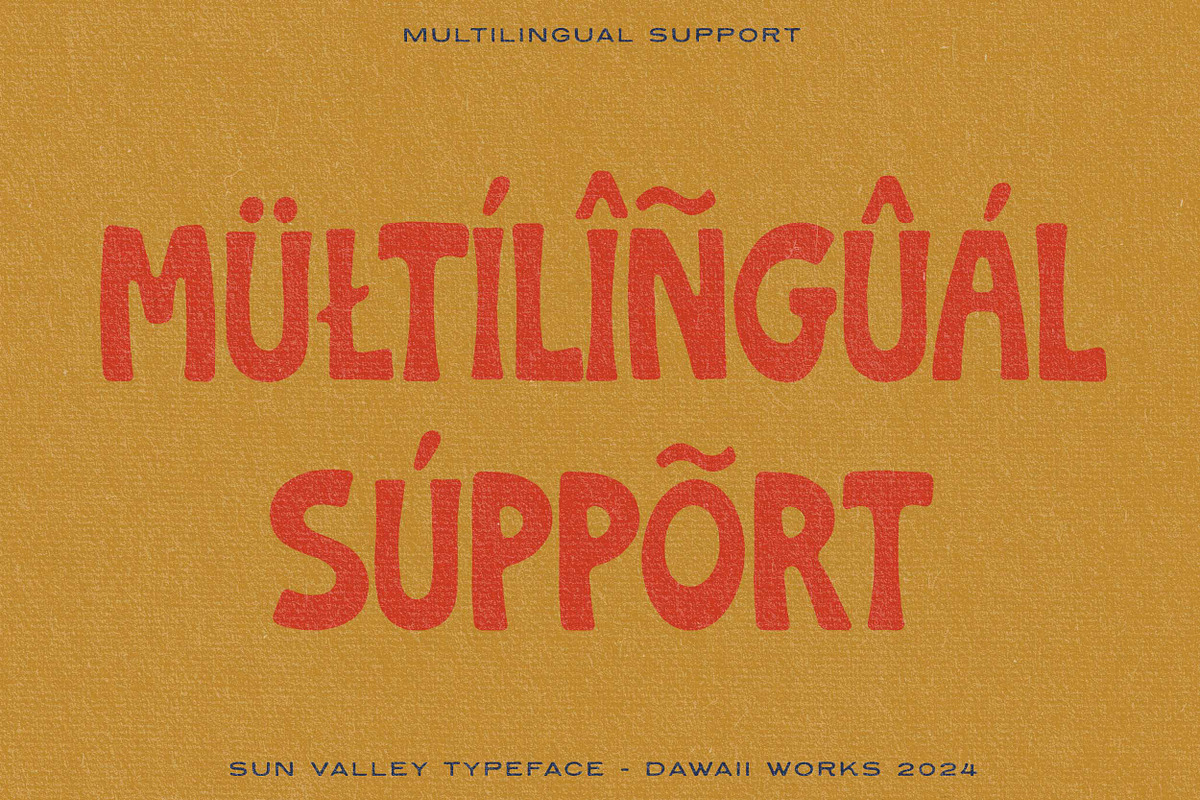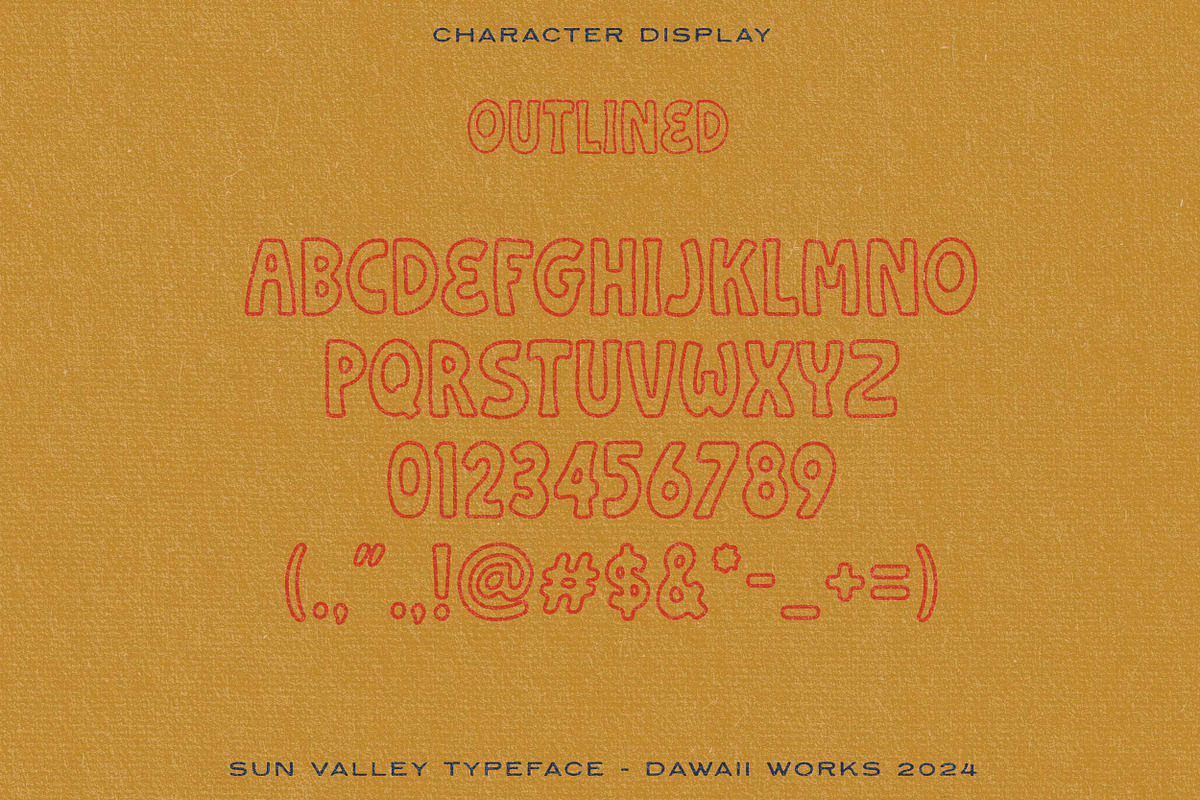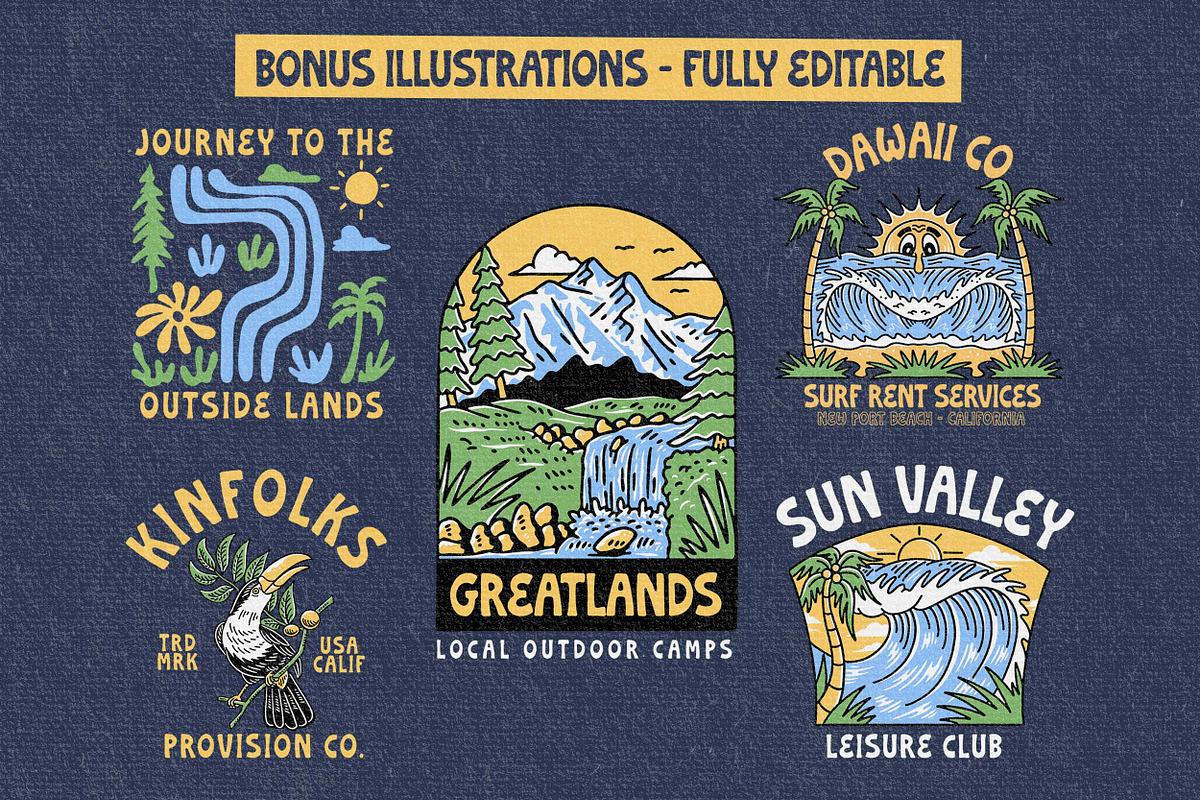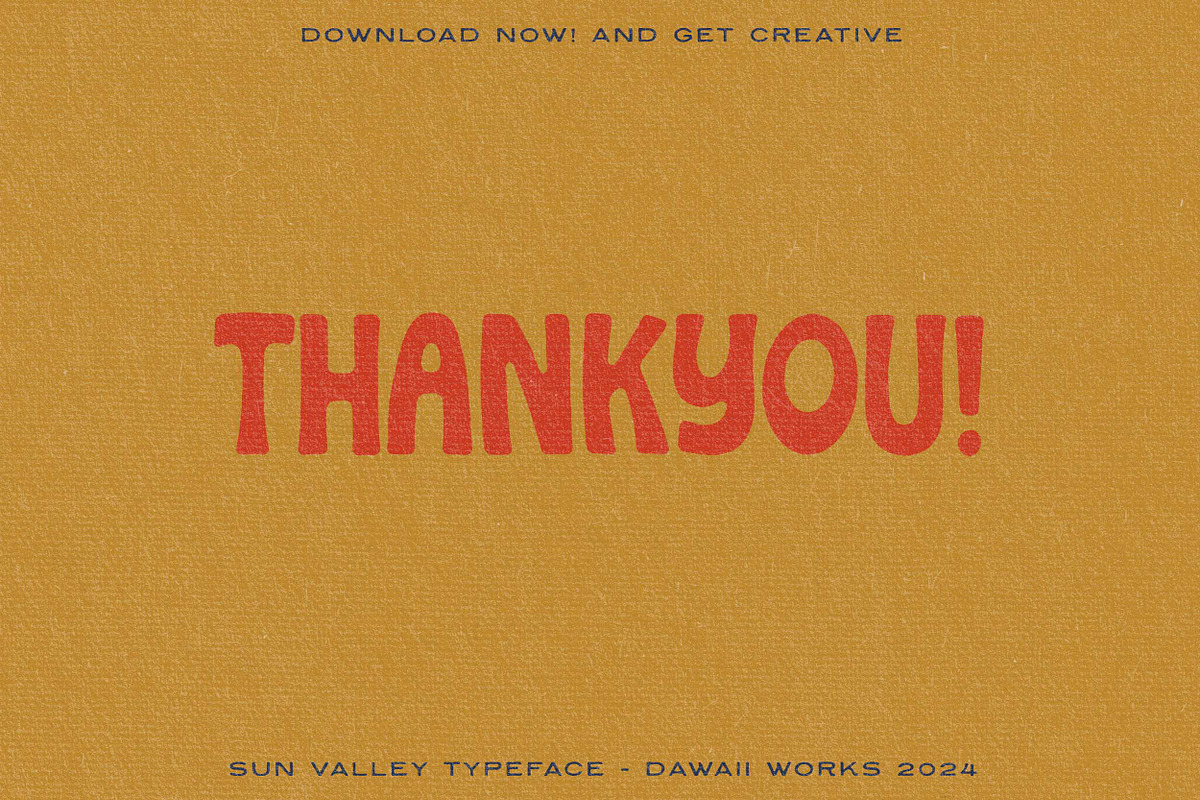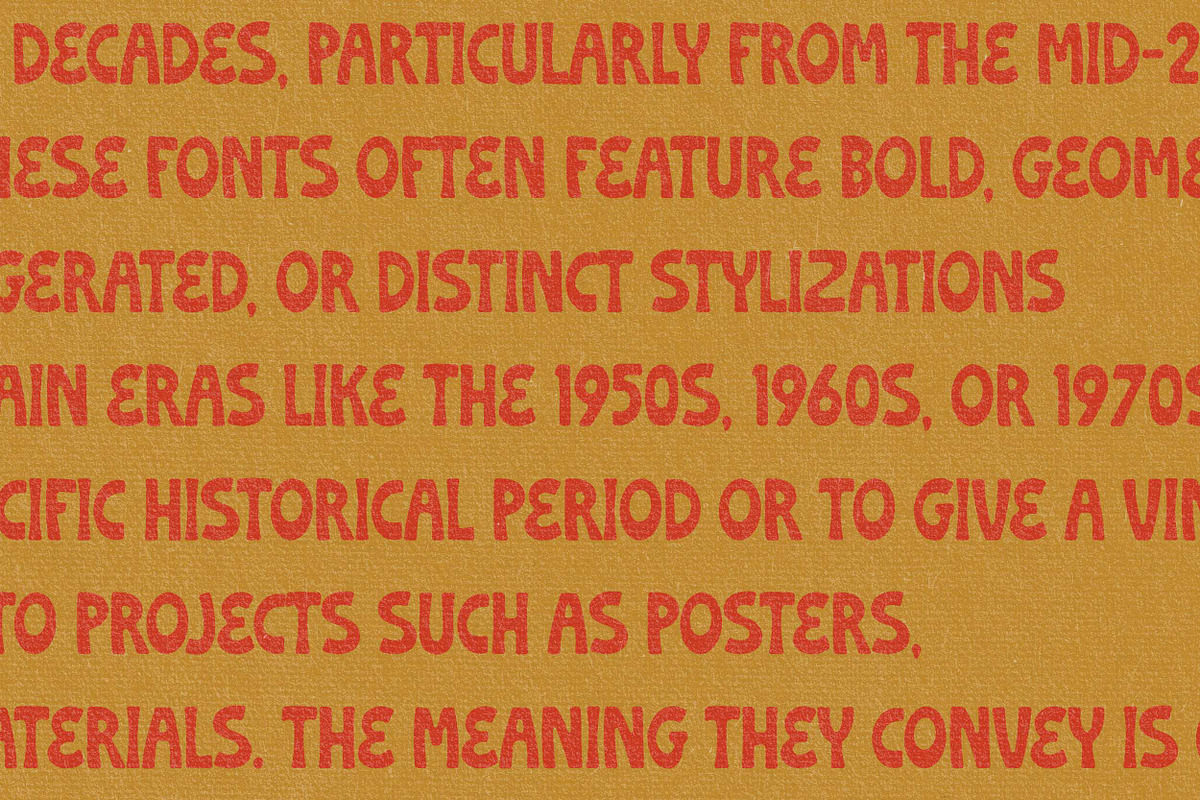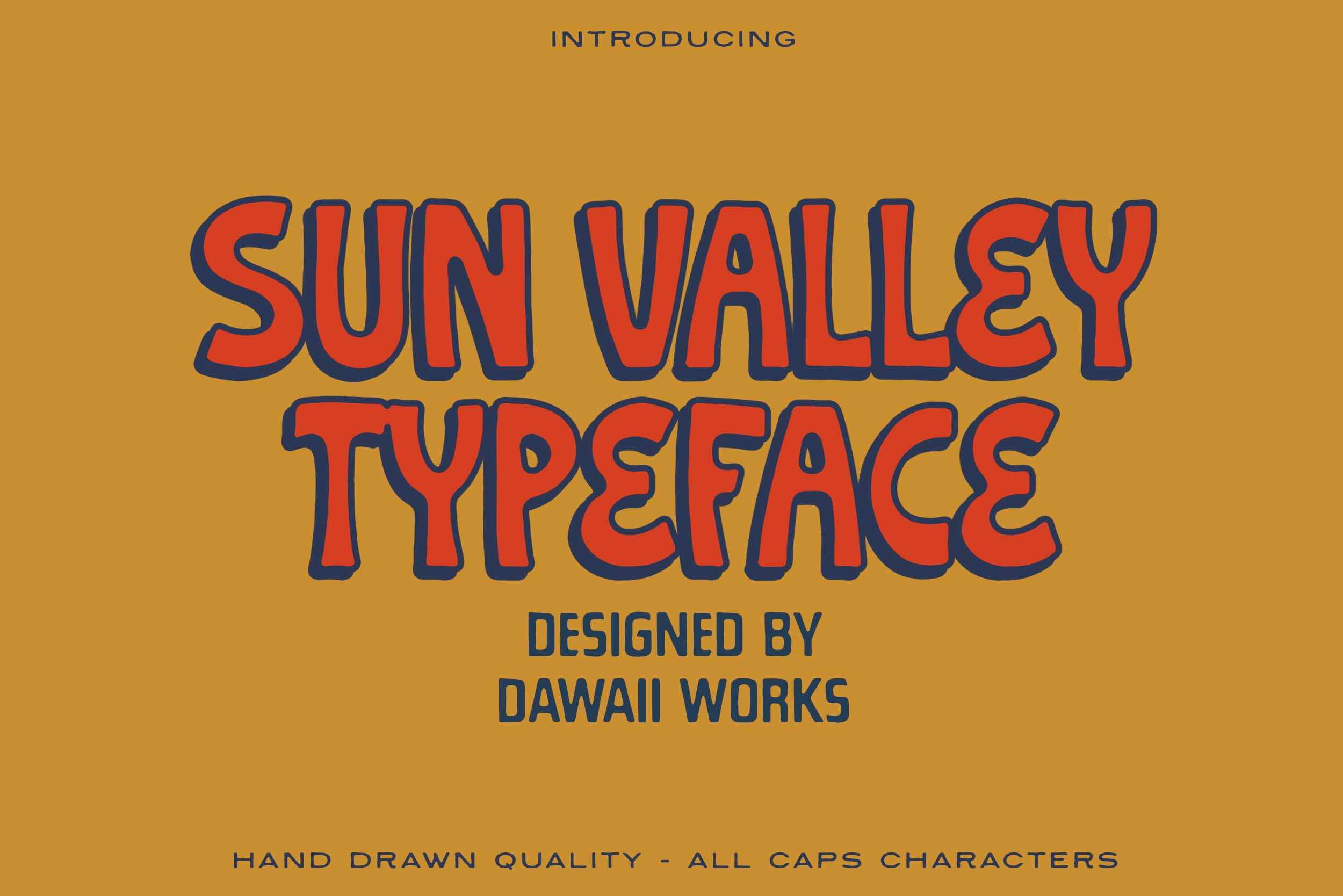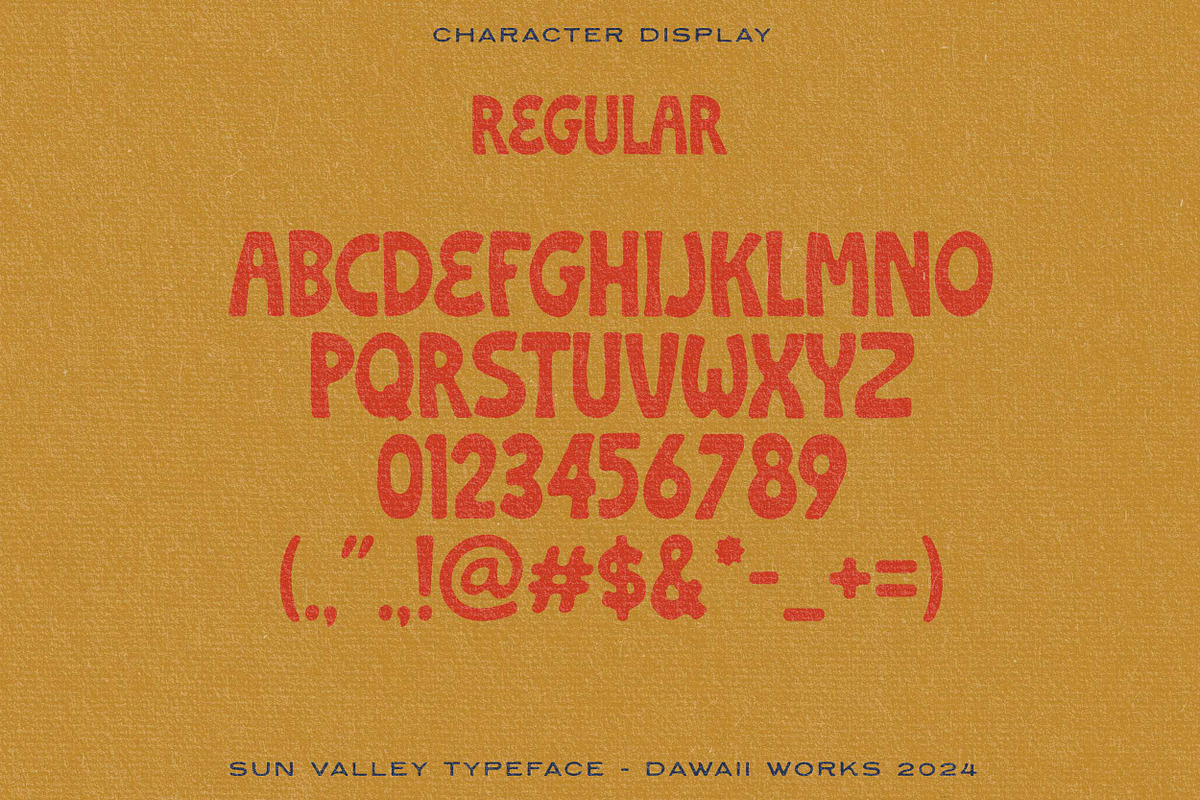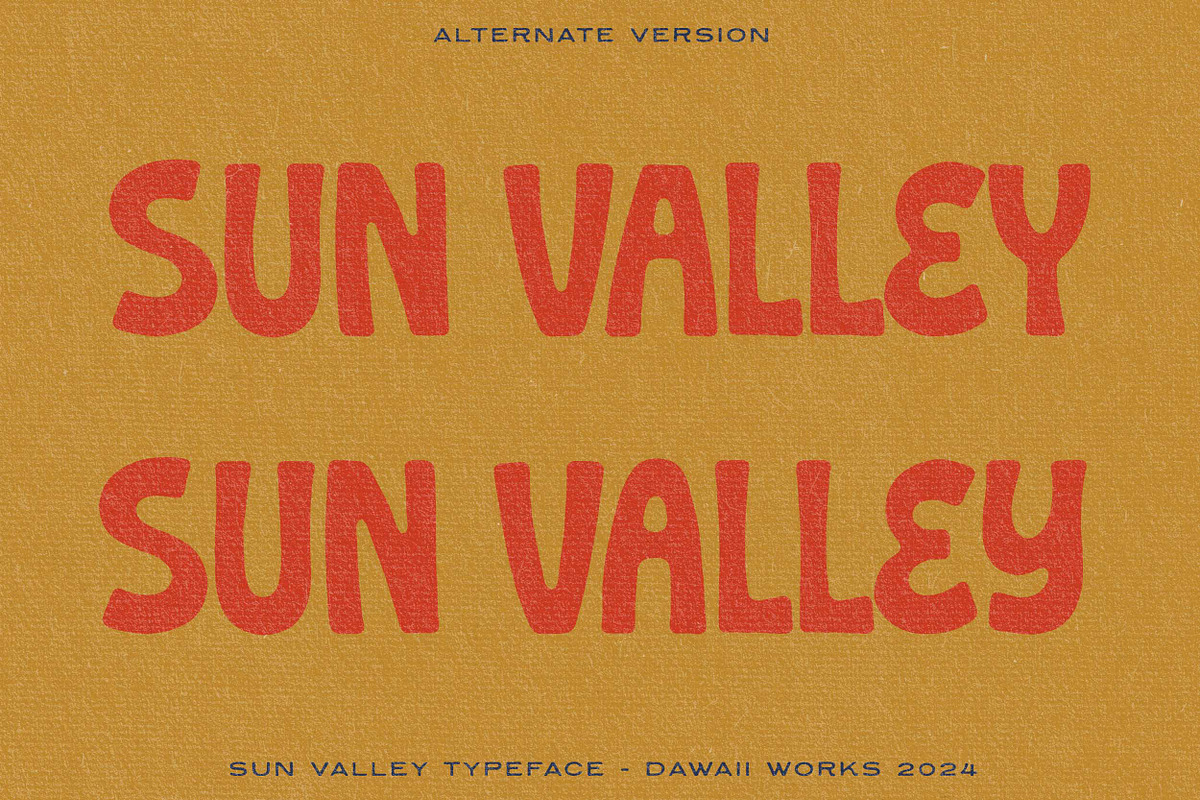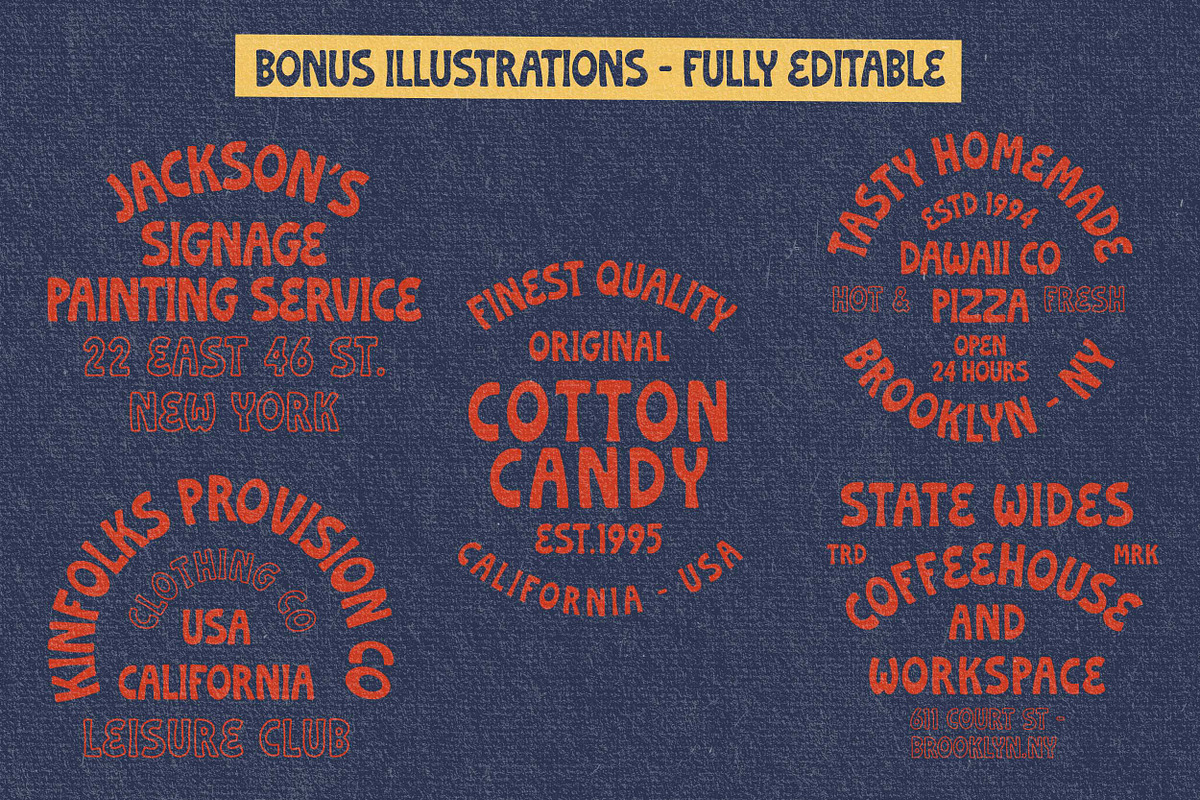
Sun Valley Typeface + 10 Extras
Sun Valley Font captures the essence of retro design with its bold and playful curves. Each letter is crafted to evoke nostalgia for the carefree spirit of past decades, making it ideal for projects that aim to stand out with a touch of vintage charm.